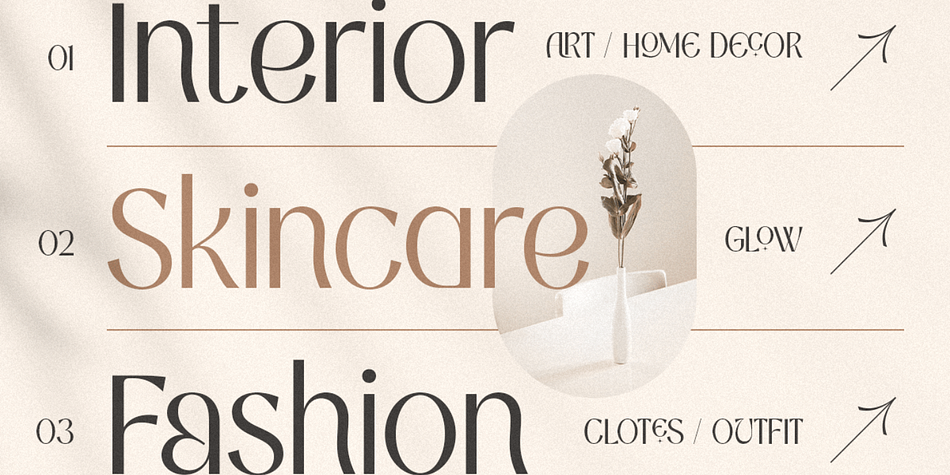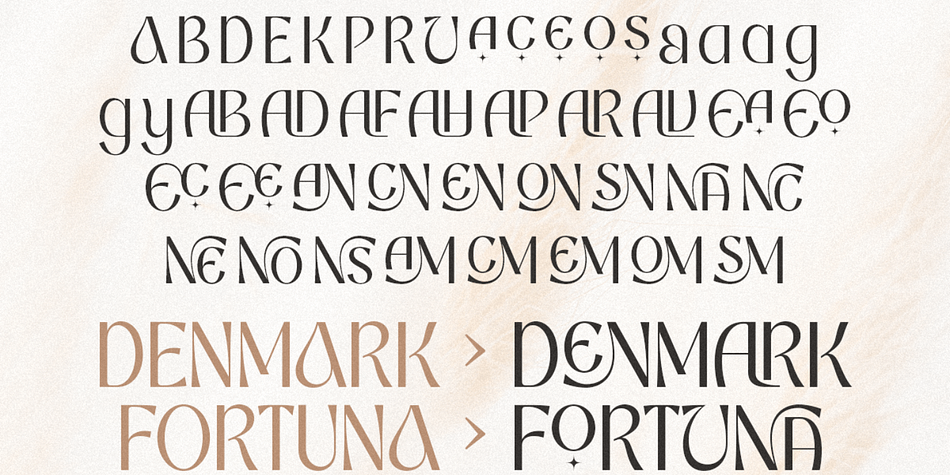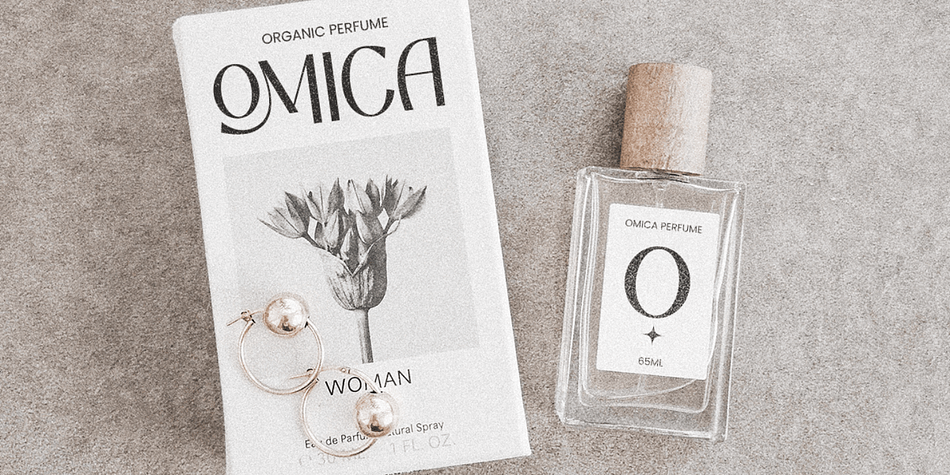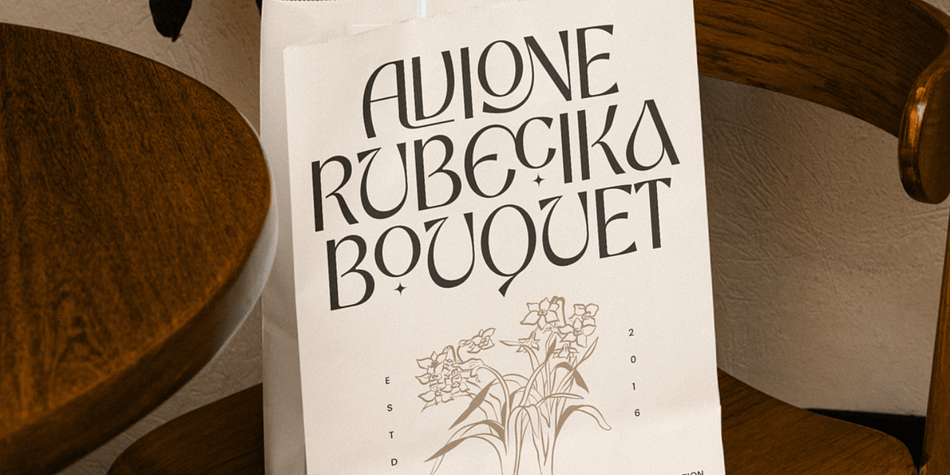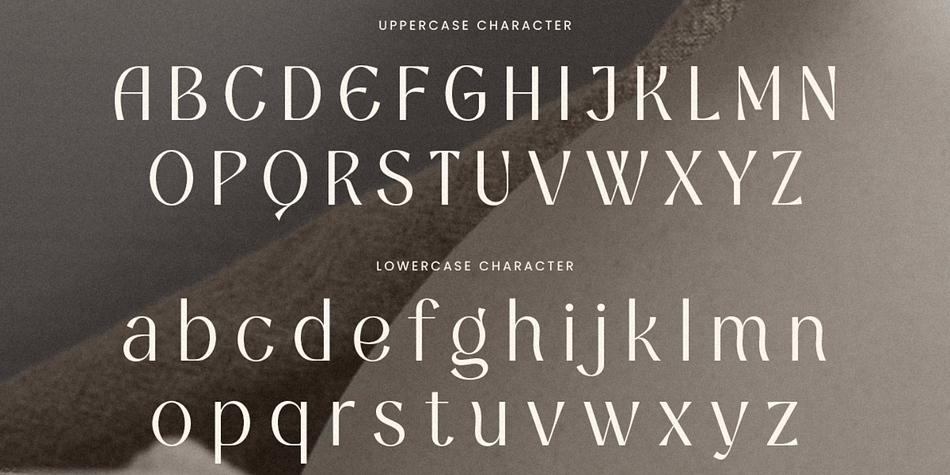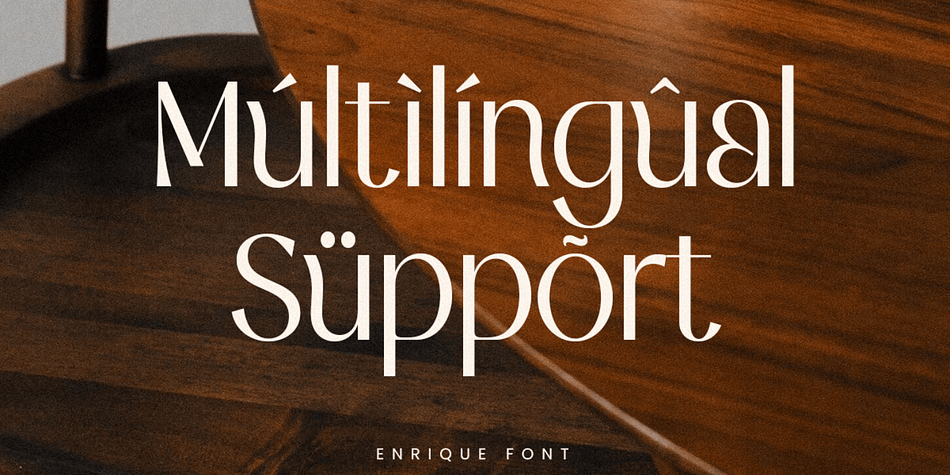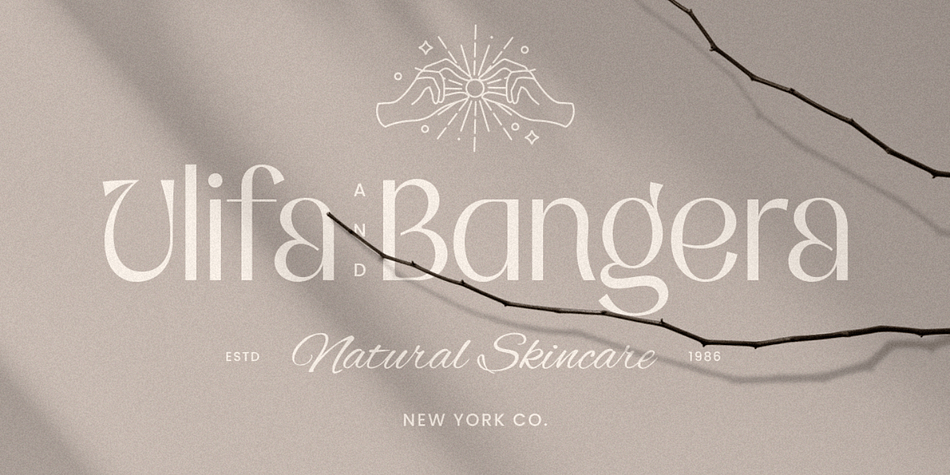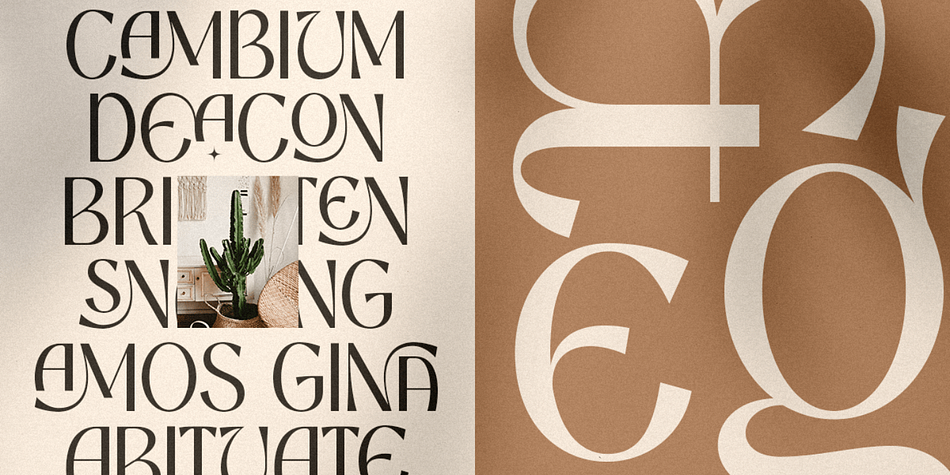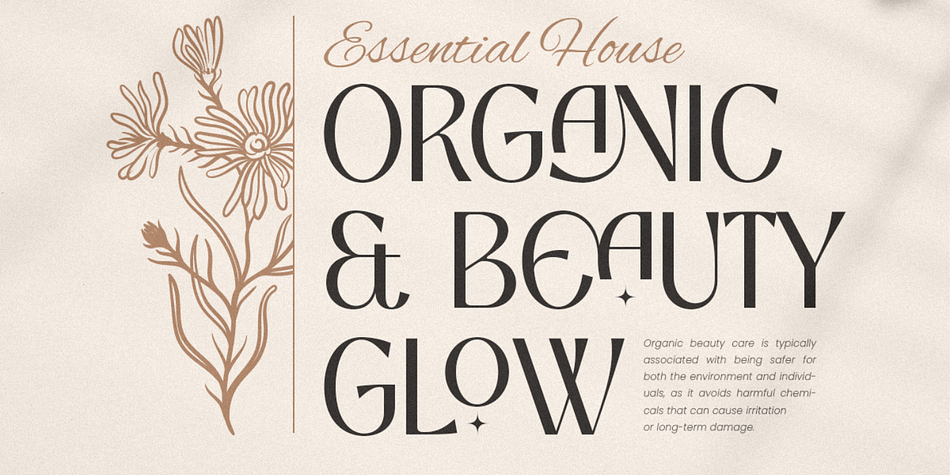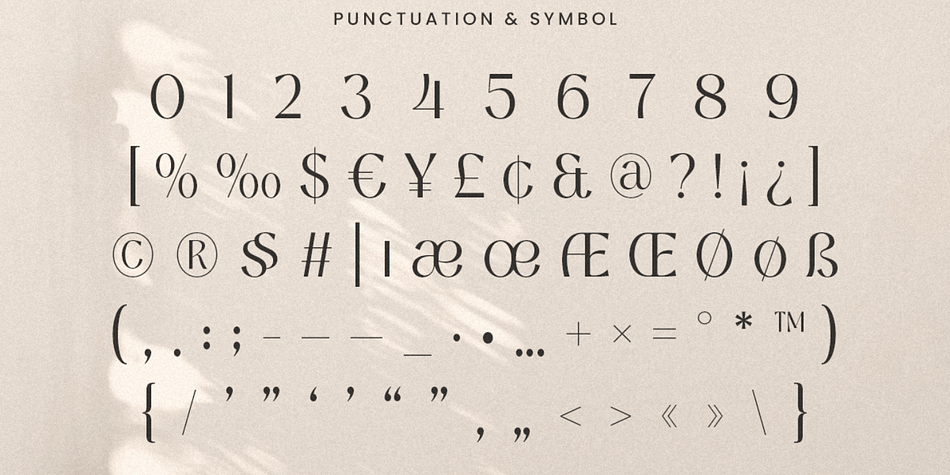
Enrique is a unique display font crafted to add a striking and creative touch to your design projects. With its modern and bold characteristics, Enrique stands out as an ideal typeface for branding, poster creation, and impactful graphic designs. This font is designed to captivate attention and evoke a sense of artistry that sets your work apart.
Whether you’re working on advertising, social media visuals, or any print material, Enrique’s unique style ensures your content is both memorable and visually appealing. Its versatile design allows it to seamlessly fit into contemporary and artistic projects, adding a distinctive flair to your work.
Enrique - Unique Display Font Features:
Artistic Display Characters
Unique Punctuation, Number, and Symbol
Uppercase and Lowercase
Opentype Features
Multilingual Characters available for:
Afrikaans, Albanian, Asu, Basque, Bemba, Bena, Breton, Chiga, Cornish, Dutch, English, Estonian, Filipino, Finnish, Friulian, Galician, German, Gusii, Indonesian, Irish, Italian, Kabuverdianu, Kalenjin, Kinyarwanda, Luo, Luxembourgish, Luyia, Machame, Makhuwa-Meetto, Makonde, Malagasy, Manx, Morisyen, North Ndebele, Nyankole, Oromo, Portuguese, Quechua, Romansh, Rombo, Rundi, Rwa, Samburu, Sango, Sangu, Scottish Gaelic, Sena, Shambala, Shona, Soga, Somali, Spanish, Swahili, Swedish, Swiss.